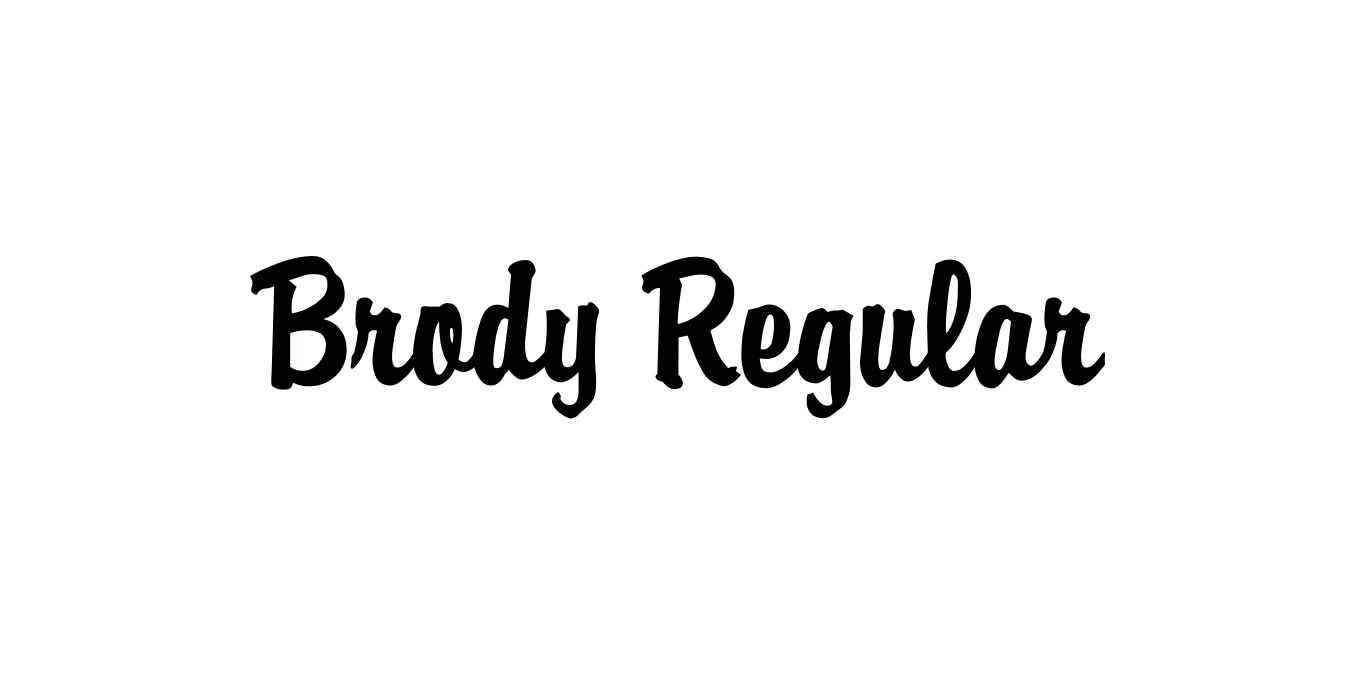
Brody Regular
Designed by Harold Adler
| Similar Fonts | Mistral, Kaufmann, Brush Script MT |
Brody Regular is a classic brush-script typeface originally designed by Harold Adler for the American Type Founders (ATF) in 1953. This font is celebrated for its fluid, hand-lettered aesthetic that captures the energetic spirit of mid-century graphic design. Its strokes mimic the motion of a paintbrush, offering a rhythmic and informal feel that was revolutionary for its time and remains popular in retro-inspired projects today.
The typeface is characterized by its connecting lowercase letters and bold, expressive uppercase characters. Brody became a staple in mid-20th-century advertising, frequently appearing on movie posters, product packaging, and storefront signage. Its versatility allows it to bridge the gap between traditional calligraphy and modern casual scripts, making it a reliable choice for designers looking to inject personality and a vintage flair into their visual communications.
Brody Regular Best Uses
Perfect for vintage-style shop signs and window displays.
Great for informal quotes and eye-catching headers.
Ideal for lifestyle brands seeking a human, hand-crafted touch.
Adds a classic, personalized feel to event stationery and cards.